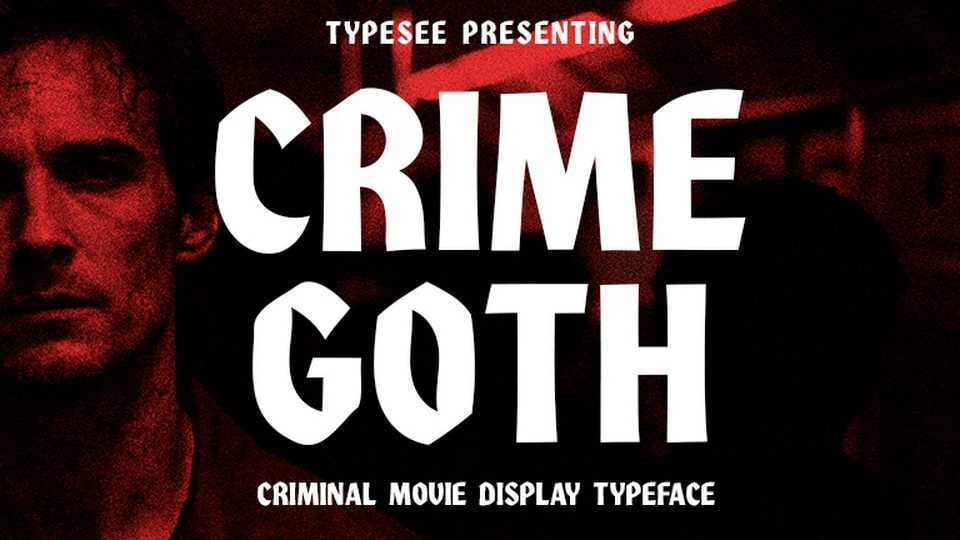
Crime Goth Font › Fontesk
Download Crime Goth font, a heavy, dramatic display typeface inspired by classic criminal movie titles and neo-noir aesthetics. It features exaggerated serifs and abrupt angles, creating a sense of instability and intimidating presence.
Designer: Typesee Typefoundry